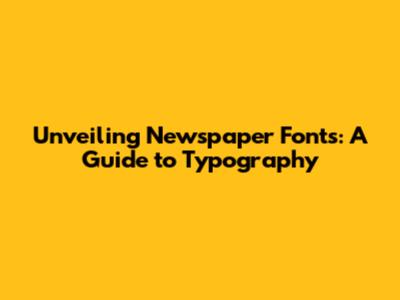
Hey guys! Ever wondered about the fonts used for newspaper names? You know, the big, bold titles you see every morning (or evening, depending on when you read your news)? Well, you're in luck because we're diving deep into the world of newspaper typography! It's a fascinating subject, trust me. We'll explore the classic fonts that have graced the headlines of some of the world's most respected publications. So, buckle up, grab your favorite coffee, and let's get started. Seriously, understanding what goes into choosing a newspaper font is more complex than it might seem, and it's super important for making sure a newspaper is readable and, frankly, looks good. We'll chat about the different types of fonts, why certain ones are preferred, and how they contribute to a newspaper's overall brand and feel. It's like a secret language, and once you know the basics, you'll start noticing it everywhere. This whole process is more than just picking a pretty font; it's about conveying a sense of authority, trust, and even a bit of personality.
The Importance of Font Choice in Newspaper Design
Okay, so why is this even important? Well, fonts used for newspaper names are crucial for several reasons. First off, they're the initial point of contact for a reader. The nameplate, which is the newspaper's title, is like a visual handshake. It's what people see first, so it needs to grab attention and establish an identity. Think about it: a well-designed nameplate can instantly communicate a newspaper's tone, whether it's serious and authoritative or more lighthearted and approachable. Then there's the readability factor. Newspapers have to cram a ton of information onto a page. Choosing fonts that are easy to read, even at smaller sizes, is critical. This is super important if the newspaper wants to avoid losing readers who are squinting or struggling to decipher the headlines. This is about making information accessible. A bad font choice can make a newspaper look cluttered and unprofessional, while a good one can create a sense of order and clarity. It's not just about aesthetics; it's about functionality. Plus, consistent font use reinforces the newspaper's brand. Just like a logo, a font can become a recognizable symbol, helping readers instantly identify and connect with the publication. Finally, it's about conveying the newspaper's personality. Is it a traditional, established publication? A modern, cutting-edge source? The font choice plays a big role in communicating that. Essentially, the right font helps a newspaper build trust, establish its brand, and ultimately, attract and retain readers. Understanding the design is a must.
Common Fonts Found in Newspaper Nameplates
Alright, let's talk about some of the fonts used for newspaper names themselves. Several classic typefaces have become synonymous with newspaper design. Let's delve into some of them!
Serif Fonts: The Traditional Choice
Serif fonts are those with the little decorative strokes (serifs) at the end of each letter. They're like tiny feet that help guide the eye along the line. They've been a staple in newspapers for centuries, and for good reason! They convey a sense of history, tradition, and authority, which is ideal for publications that aim to be seen as reliable and trustworthy. A few of the most popular serif fonts used in newspapers include: Times New Roman, a true classic. It's known for its readability and has been used by countless publications worldwide. It's so ubiquitous that it's almost the default newspaper font. Georgia, similar to Times New Roman but slightly more modern, Georgia is another excellent option for readability. It's designed to look great on both print and screens. Garamond, often associated with elegance and sophistication, Garamond is a timeless choice. Its refined appearance makes it suitable for newspapers aiming for a more upscale image. The Times of London, The New York Times, and the Wall Street Journal, have used these fonts at one time or another. You'll also notice these fonts being utilized to highlight the content of the article or for secondary titles, and can be seen with the use of italics or bolding the font.
Sans-Serif Fonts: Modern and Clean
Now, let's move on to the sans-serif fonts. Sans-serif fonts are fonts without those little serifs. They have a clean, modern look and feel. In recent years, sans-serif fonts have gained popularity in newspaper design, especially for nameplates. They project a sense of modernity and clarity, which can be appealing to younger audiences. Common sans-serif font choices include: Helvetica, a clean, neutral font, Helvetica is often used for nameplates and headlines. It's a versatile choice that works well in various settings. Arial, similar to Helvetica, Arial is another popular option known for its readability. It's often used when a cleaner appearance is desired. Gotham, a geometric sans-serif font, Gotham is known for its distinctive appearance. This font is very recognizable in pop culture, and is often used by modern publications seeking a bold, contemporary look. Many newer publications and online newspapers lean towards sans-serif fonts to appeal to a broader audience.
Display Fonts: For a Bold Statement
Display fonts are fonts that are typically used for headings and nameplates. They're designed to grab attention and make a strong visual impact. They are often bold, large, and stylized. Display fonts add character and personality to a newspaper's title, making it more memorable. These fonts may not be suitable for body text due to their excessive ornamentation. The use of display fonts is typically more common in the names and titles of magazines, versus newspapers. Overall, a mix of serif and sans-serif fonts is often used to give newspapers a distinct and modern feel. These are combined to give the reader an appealing reading experience.
The Design Process: Choosing the Right Font
Alright, so how do newspaper designers actually choose the fonts used for newspaper names? It's not a decision that's taken lightly, believe me. It involves a lot of consideration, research, and testing. Here's a glimpse into their process.
Understanding the Newspaper's Brand
Firstly, designers must fully understand the newspaper's brand identity. What values does the newspaper represent? What is its target audience? Is it a serious news source, a local paper, or a tabloid? The answers to these questions will significantly influence the font choice. For example, a newspaper that aims to be seen as authoritative might choose a classic serif font, while a more modern publication might opt for a sans-serif. The overall goal is to choose a font that aligns with the newspaper's personality and goals. The tone of the article must be consistent with the brand, so the chosen font helps support that feeling.
Considering Readability and Legibility
Next, readability is paramount. Newspapers have a lot of text, and readers need to be able to scan and read it quickly. Designers test different fonts at various sizes to make sure they're easy on the eyes. This is especially important for the nameplate, which needs to be immediately recognizable. Designers also consider the overall design layout and readability of the text. They experiment with different font sizes, weights, and spacing to create a cohesive and user-friendly design. It's important that the fonts are easily readable at various sizes, to ensure readability for the reader.
Experimentation and Testing
Designers will often experiment with several font options. They may create mock-ups of the nameplate and different headlines using various fonts. They'll also test the fonts in different sizes and weights. This whole process includes a lot of experimentation. Designers might also get feedback from other people on which fonts are most visually appealing and readable. This testing phase allows designers to make informed decisions and ensure that the final font choice meets all the newspaper's needs. The font also has to match the content of the article.
Fonts in the Digital Age
So, what about the digital world? The rise of online news has had a huge impact on the fonts used for newspaper names. Designers now must consider how fonts look on screens of all sizes, from smartphones to large desktop monitors. This has led to the increased use of web-safe fonts that are optimized for digital display. Responsive design is a factor. Online newspapers often use dynamic layouts that adapt to different screen sizes. This requires font choices that are versatile and can be scaled without losing readability. Digital platforms also provide more opportunities for creativity. Newspapers can use different fonts for headlines, subheadings, and body text to create a more engaging reading experience. The key is to balance visual appeal with the reader's ease of use. This is also why many digital publications use sans-serif fonts, to give a clean and modern appeal.